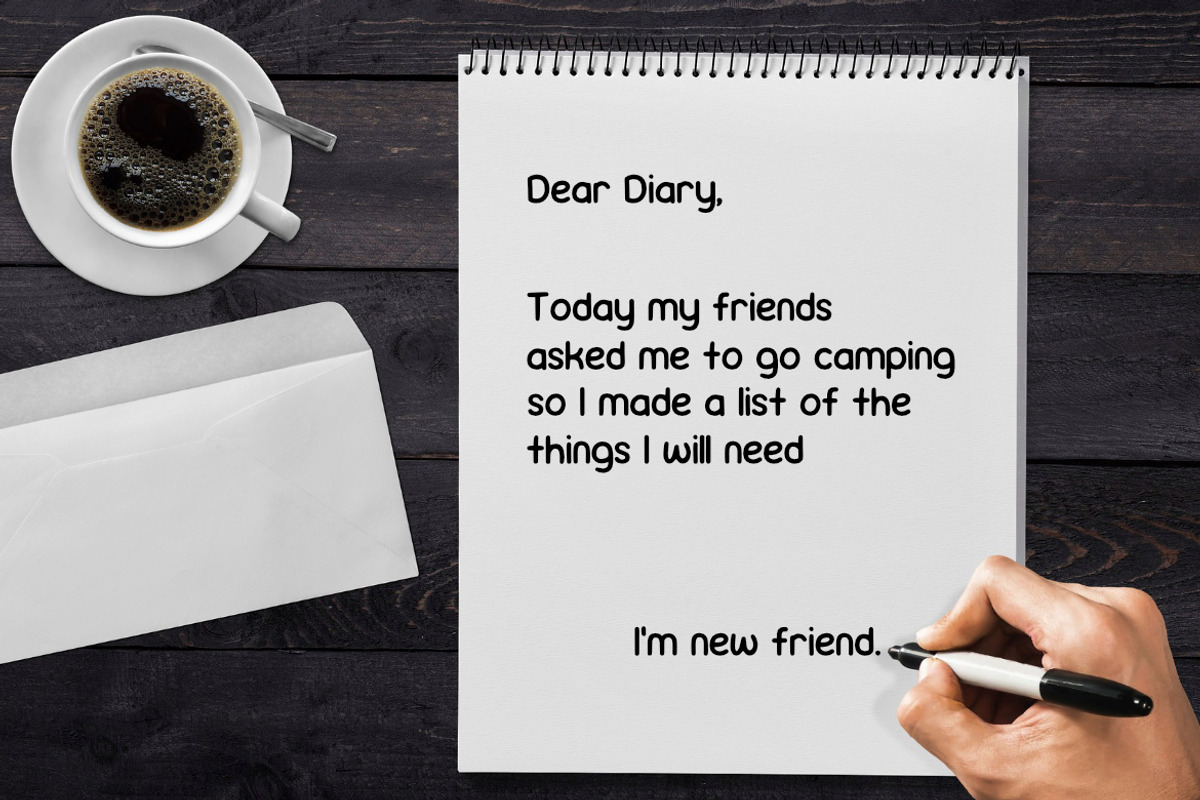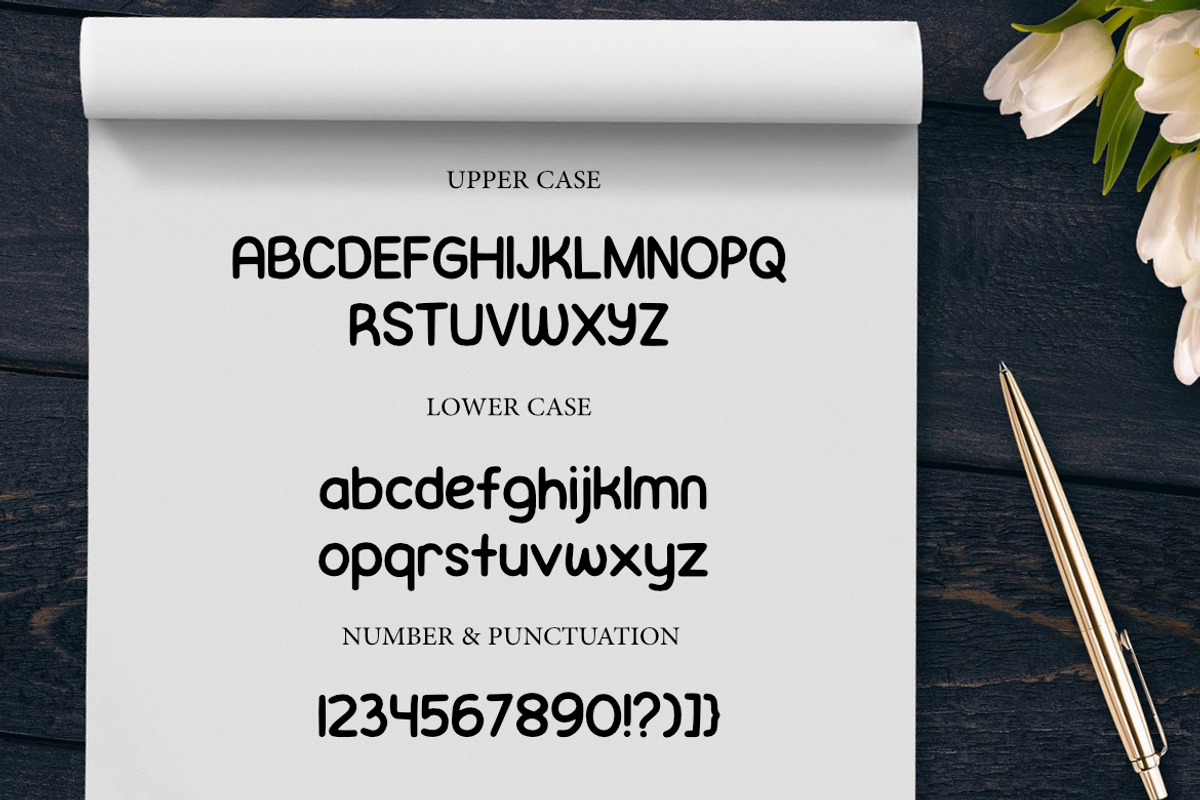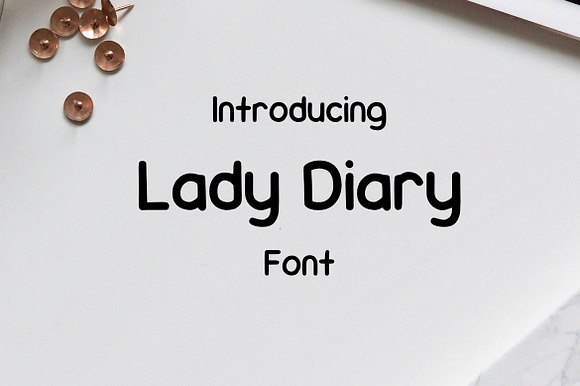
Lady Diary Font
Simple and cute font , suitable for many project , quotes, logo , doodle, heading , title etc.
Why Lady Diary Font is worth a look
Lady Diary Font by ArdiDesigns fits naturally into Branding, posters, packaging, typography.